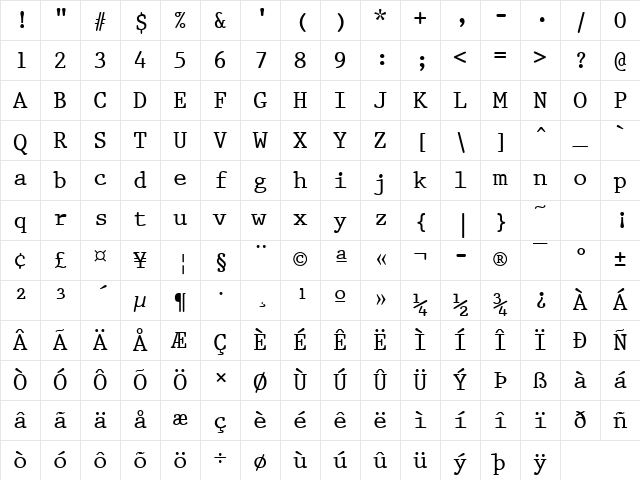
Prestige Regular Free Font
Prestige Regular
Design Context for Prestige
Prestige is a composed and adaptable typeface that performs quietly and consistently across a wide range of design contexts.